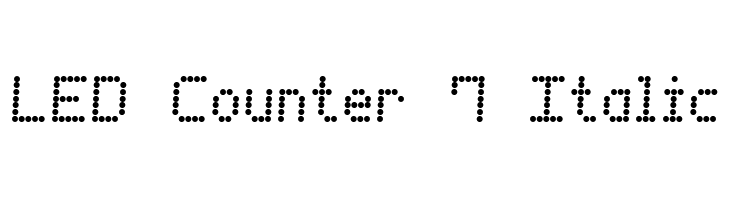
A dot matrix font with an italic slant, ideal for digital and retro designs.
A digital-style, italicized font with a segmented, LED display appearance.